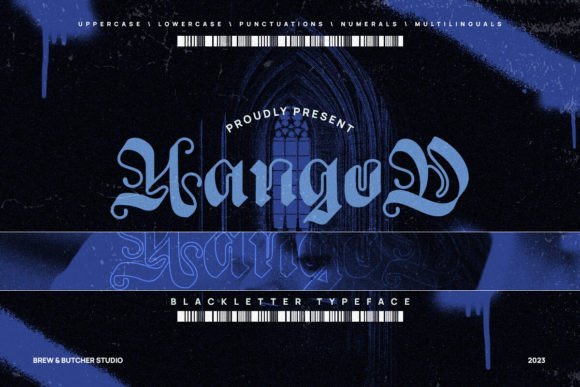
Unlock the Mystique of Hangod Font
Have you ever found yourself staring at a beautifully crafted poster, trying to decipher the secret behind its captivating design? As a designer, you know that the perfect font can elevate your work from mere creativity to pure artistry. That’s where Hangod Font comes in – a black letter calligraphy style that weaves its magic with curved lines, connecting the bodies of the letters to create an impression of unity.
This enchanting font boasts a slightly spooky and gothic charm, yet still exudes a bold and confident vibe. With its soft curves, Hangod Font is a true showstopper, perfect for grabbing attention in headers, posters, flyers, and banners. Whether you’re designing a portfolio, creating album covers, or crafting a landing page, Hangod Font is the perfect companion to bring your vision to life.
Hangod Font Key Features
- Font Family: Hangod Font comes in 5 different font styles – Regular, Bold, Italic, Bold Italic, and Outline.
- Character Count: The font family includes over 200 glyphs, covering a wide range of languages.
- Unique Characteristics: Hangod Font features a unique blend of modern and traditional design elements, with intricate details and ornate flourishes.
Hangod Font Review
Overall, I was pleasantly surprised by the Hangod Font. It has a unique, elegant aesthetic that would be perfect for high-end fashion or luxury branding. ✨ The font’s fluid lines and smooth curves create a sense of sophistication, making it an excellent choice for designers looking to add a touch of glamour to their designs.
- ✨ Unique and elegant aesthetic
- ✨ Suitable for high-end fashion or luxury branding
- ✨ Fluid lines and smooth curves create a sense of sophistication
However, there are some limitations to consider. ⚠️ The font may be too ornate for certain designs, and its complexity may make it difficult to read in smaller sizes. Additionally, the font’s high-end aesthetic may not be suitable for more casual or playful branding.
- ⚠️ May be too ornate for certain designs
- ⚠️ Complexity may make it difficult to read in smaller sizes
- ⚠️ May not be suitable for casual or playful branding
In conclusion, Hangod Font is a solid choice for designers looking to add a touch of luxury to their designs. While it may have some limitations, its unique aesthetic and sophisticated feel make it a great option for high-end branding.
Tips for Getting the Most Out of Hangod Font
Experiment with different font sizes, colors, and styles to create visually appealing designs.
Use Hangod Font in combination with other fonts to create a unique and eye-catching look.
Consider using Hangod Font for headings or titles to add a touch of elegance to your designs.
Hangod Font is suitable for a wide range of design applications, including:
Business cards and brochures
Branding and marketing materials
Alternatives to Hangod Font
Montserrat is a popular sans-serif font designed by Julieta Ulanovsky. It’s perfect for headings, titles, and short paragraphs where a clean and modern look is desired.
Compared to Hangod Font, Montserrat has a more geometric and industrial feel, making it ideal for digital and urban designs. Hangod Font, on the other hand, has a more organic and elegant feel.
Ostrich Sans is a sans-serif font designed by Vernon Adams. It’s great for body text, paragraphs, and long-form content where readability is crucial.
Compared to Hangod Font, Ostrich Sans has a more relaxed and approachable feel, making it ideal for editorial, educational, and informative designs. Hangod Font has a more formal and sophisticated feel.
Lato is a sans-serif font designed by Łukasz Dziedzic. It’s perfect for creating a clean and elegant look in headings, titles, and short paragraphs.